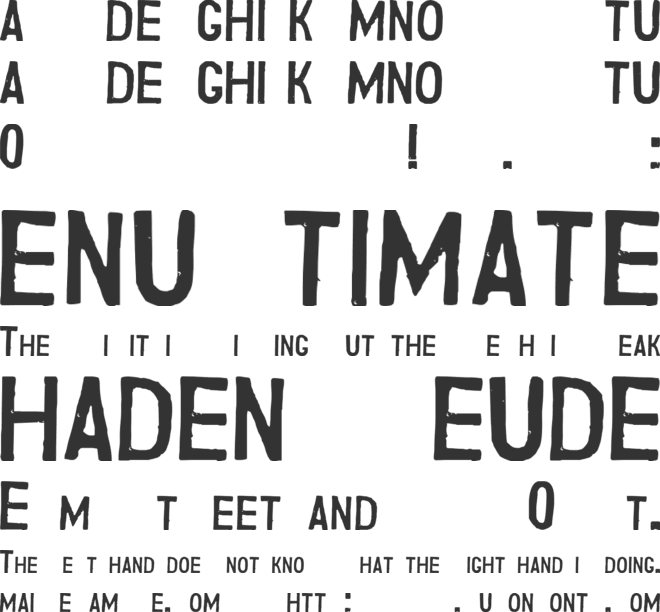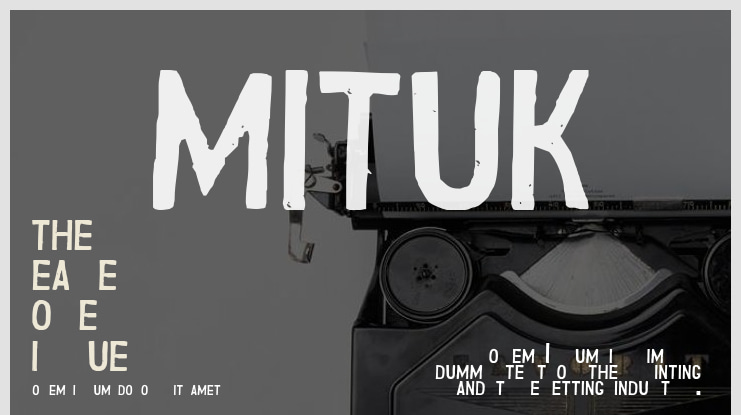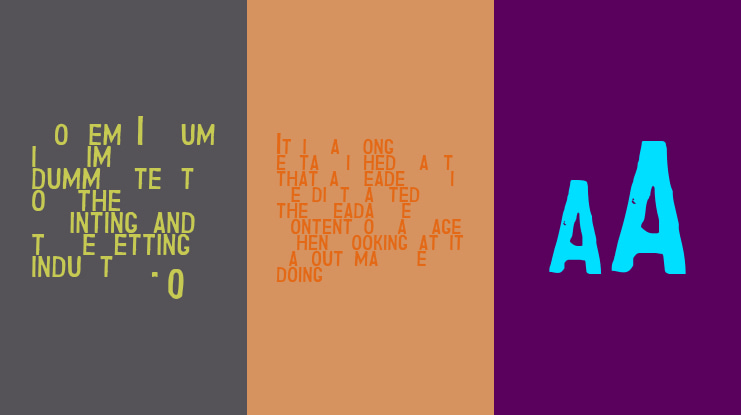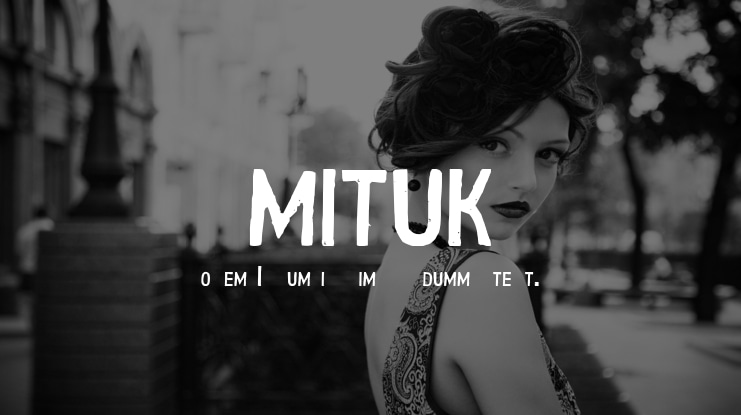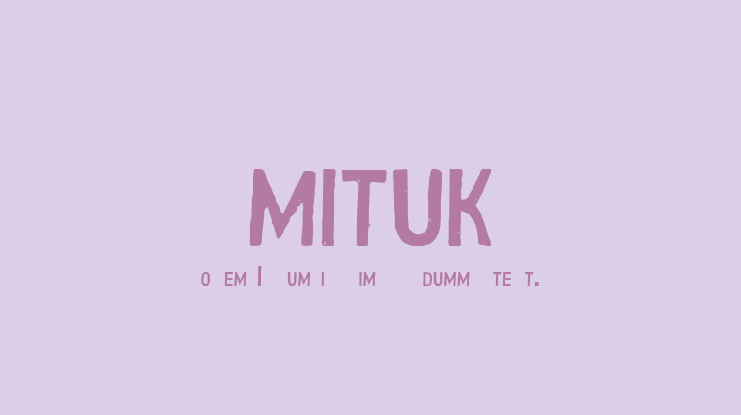
SMITUK Font
Playing with my old cardboard boxes from over 30 years ago found this lurking, thought it made a great printed typeface. SMITUK NOT in the Far East!